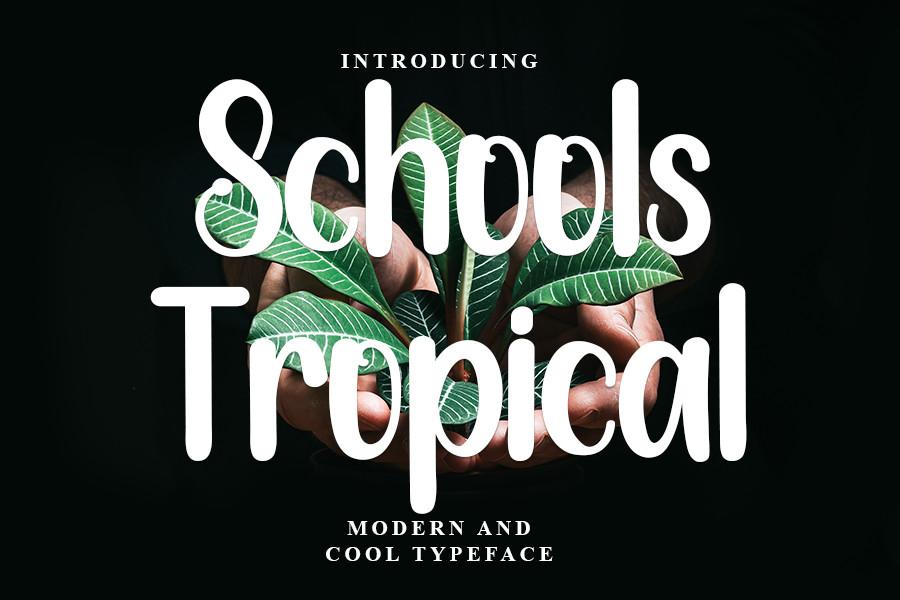
Schools Tropical Font Description
Schools Tropical is a stylish handwritten font with a contemporary atmosphere and impeccable form, inspired by a timeless classic calligraphy. Not too thin and not too thick, balanced and varied, this font was designed to enhance the beauty of your projects.